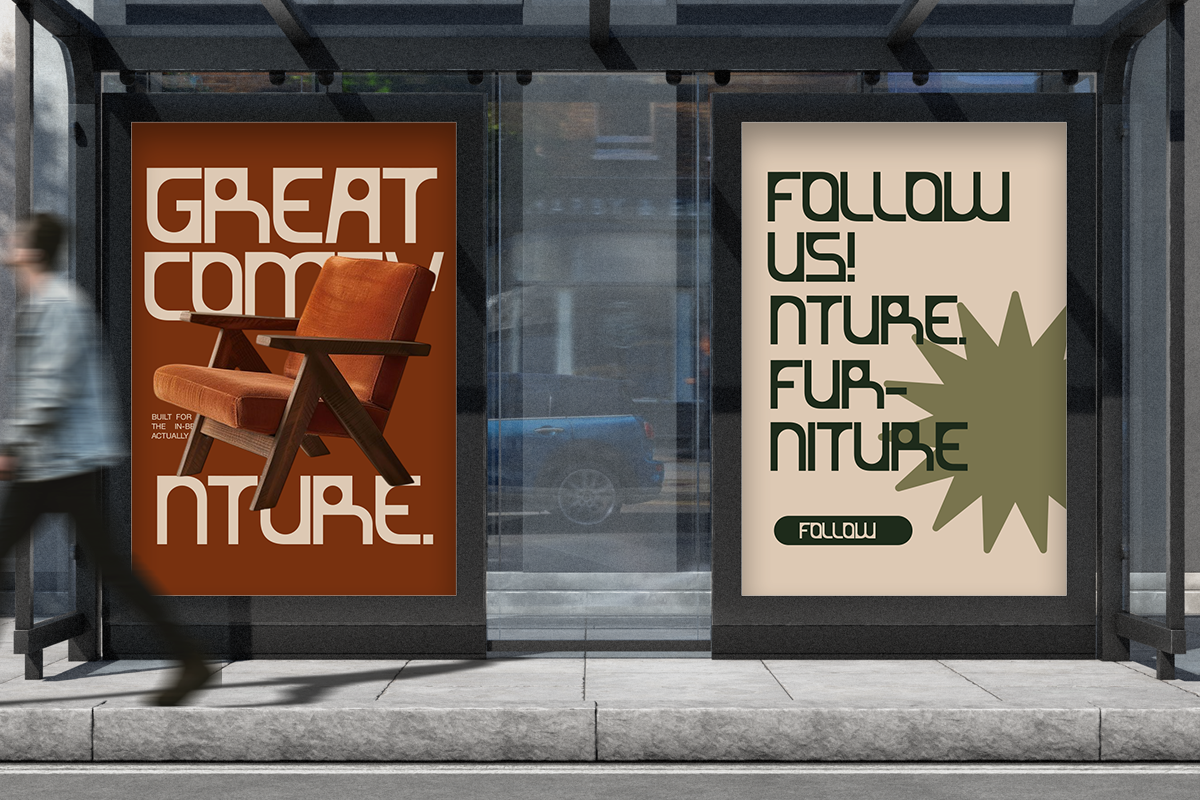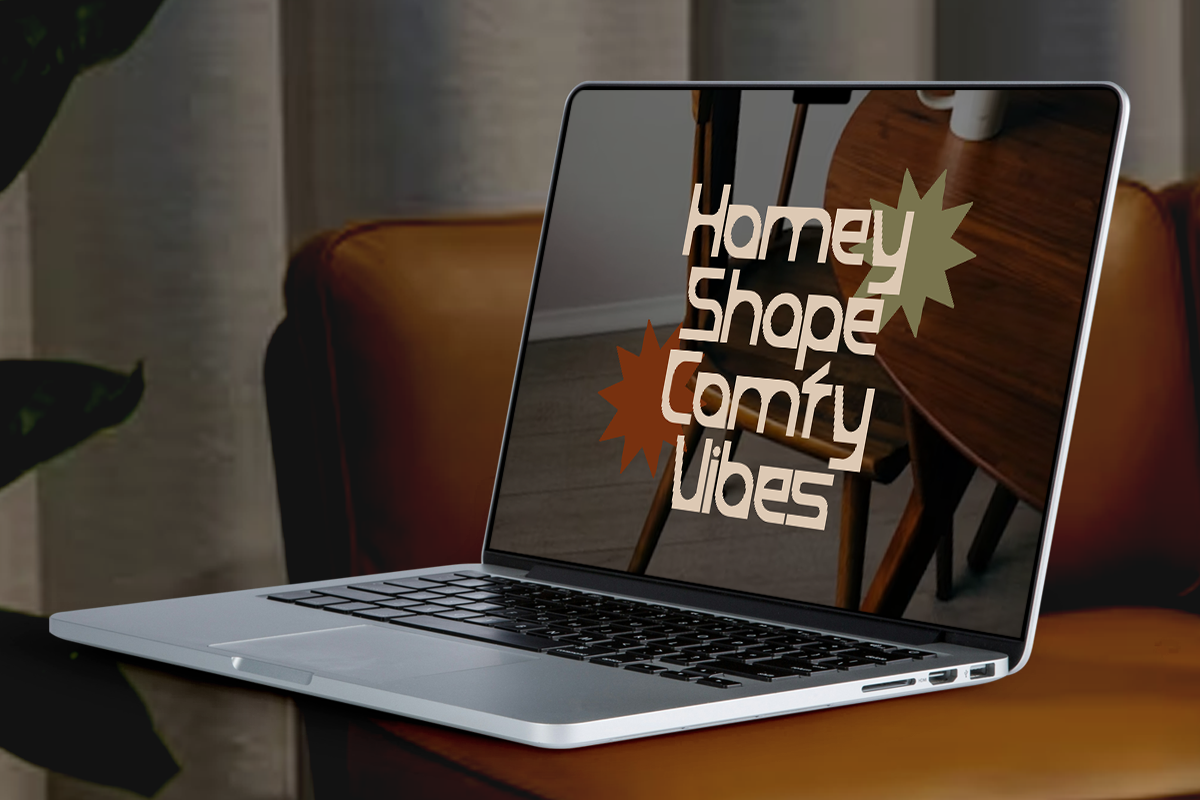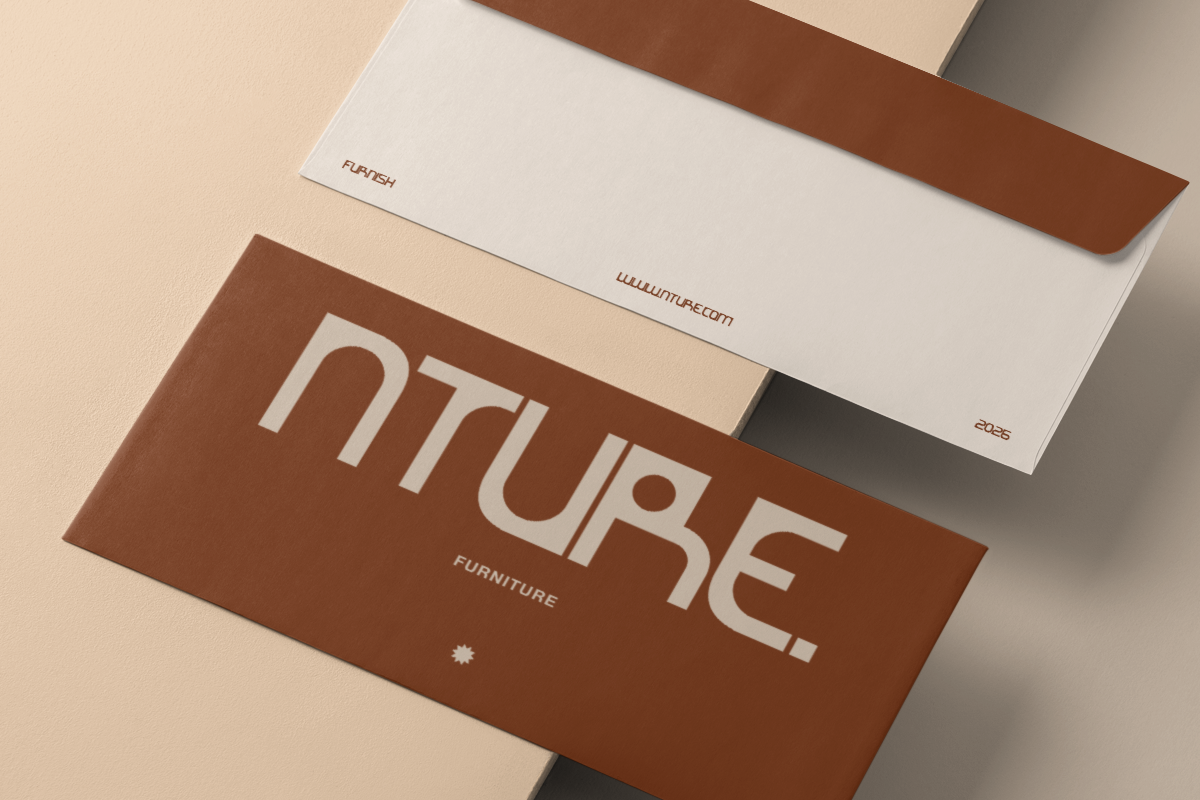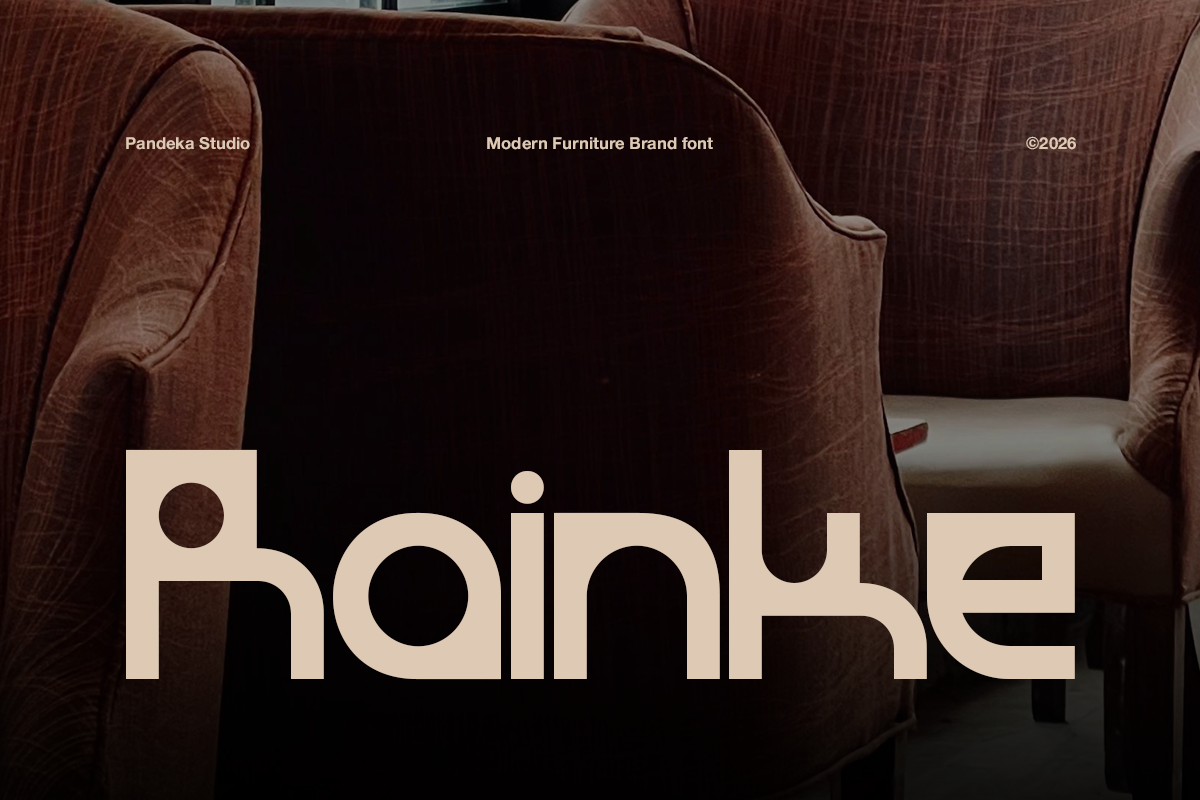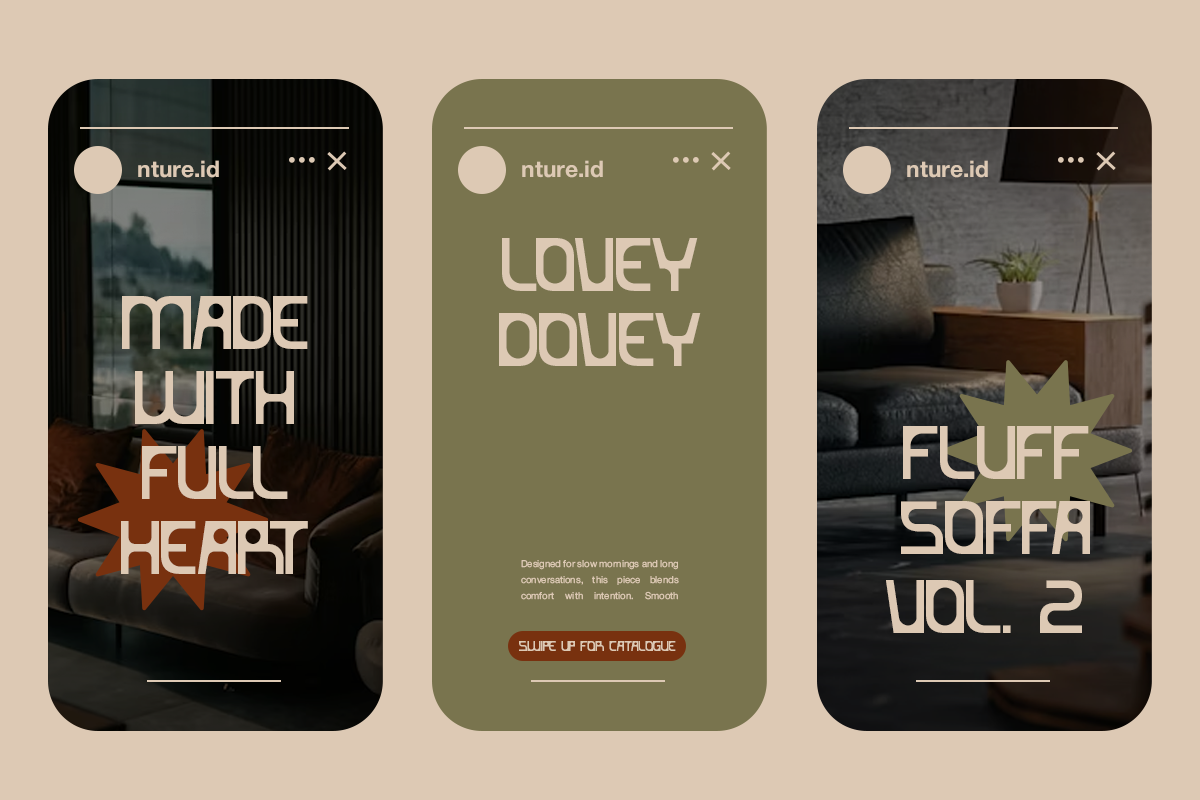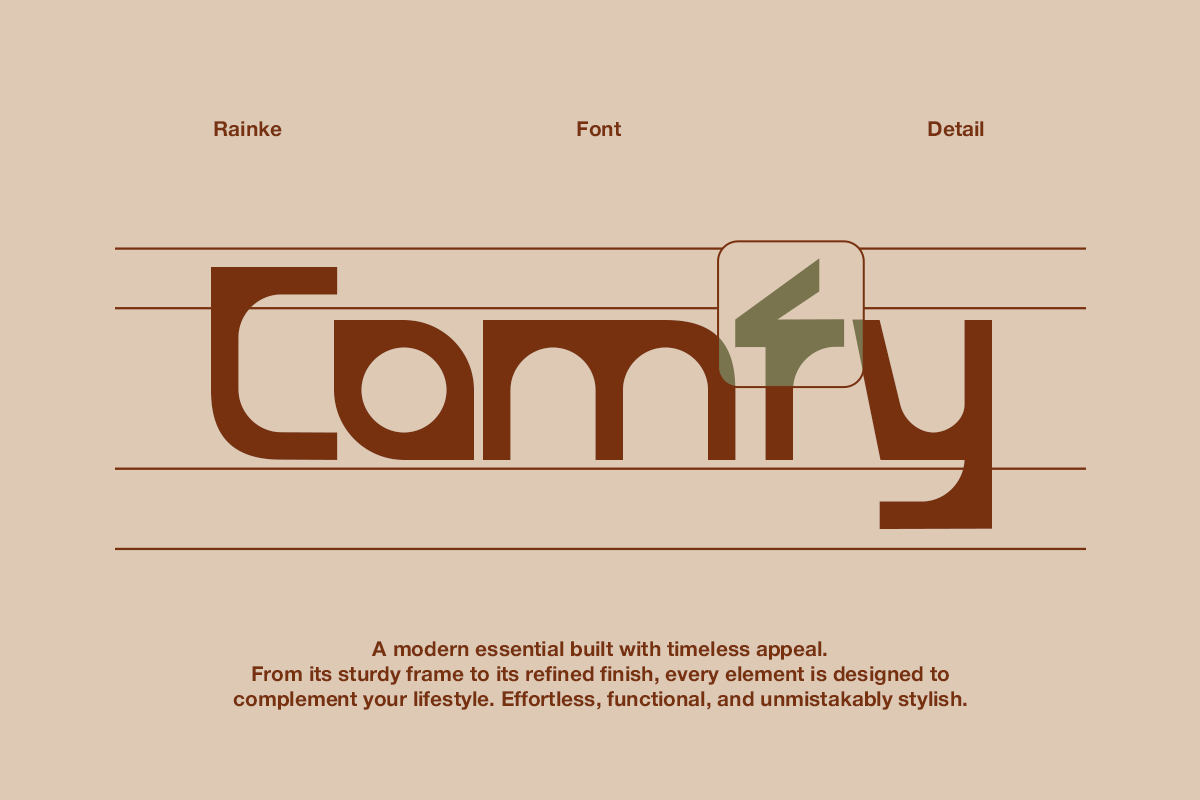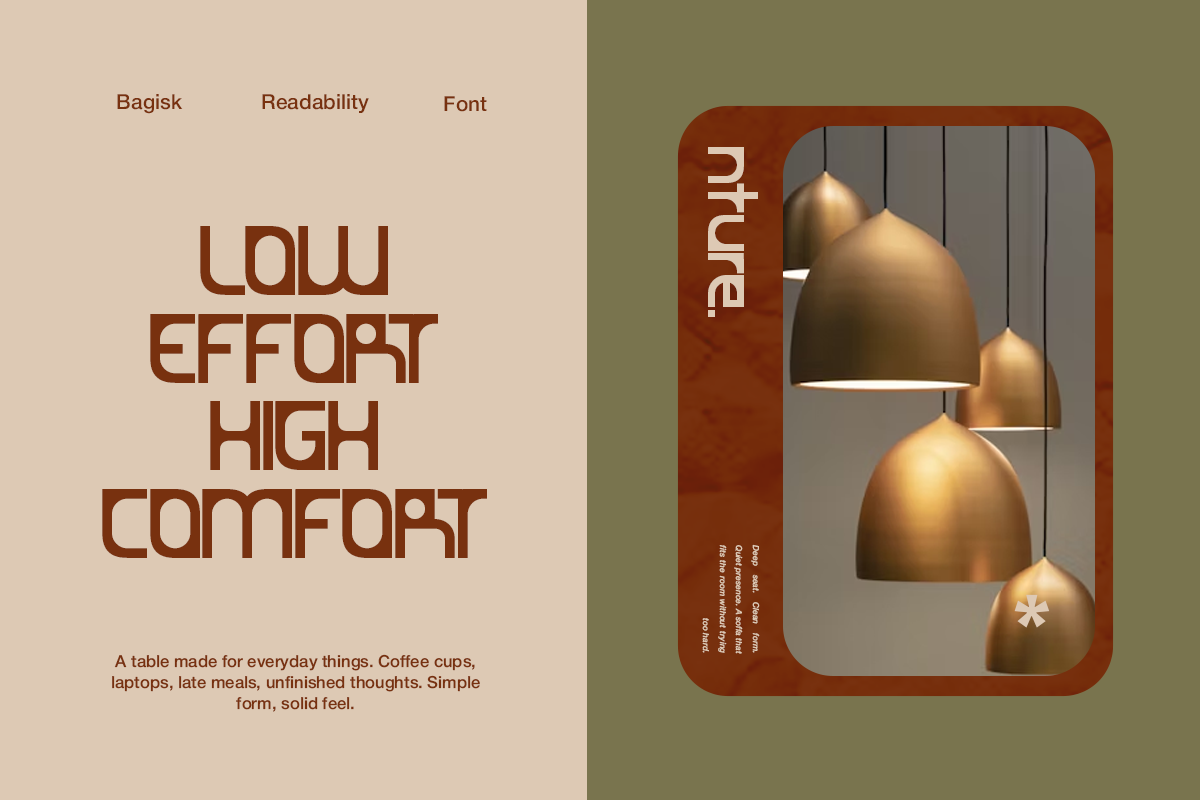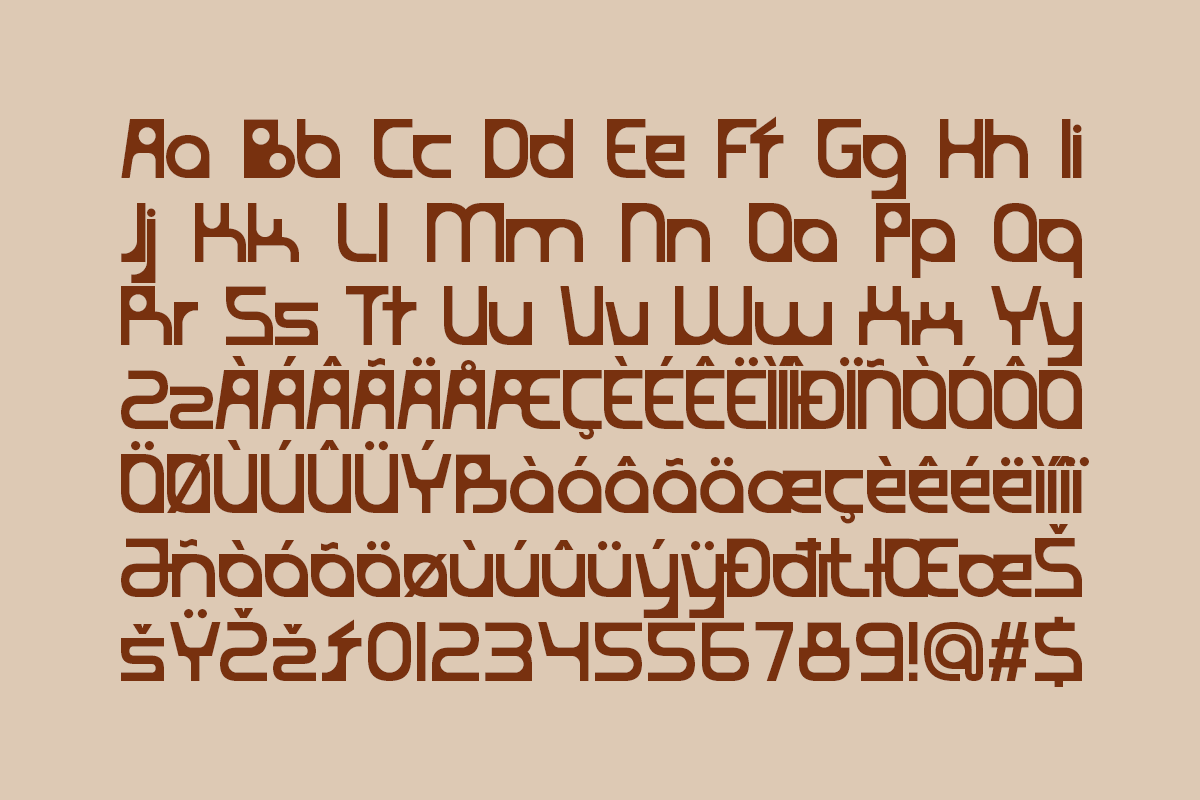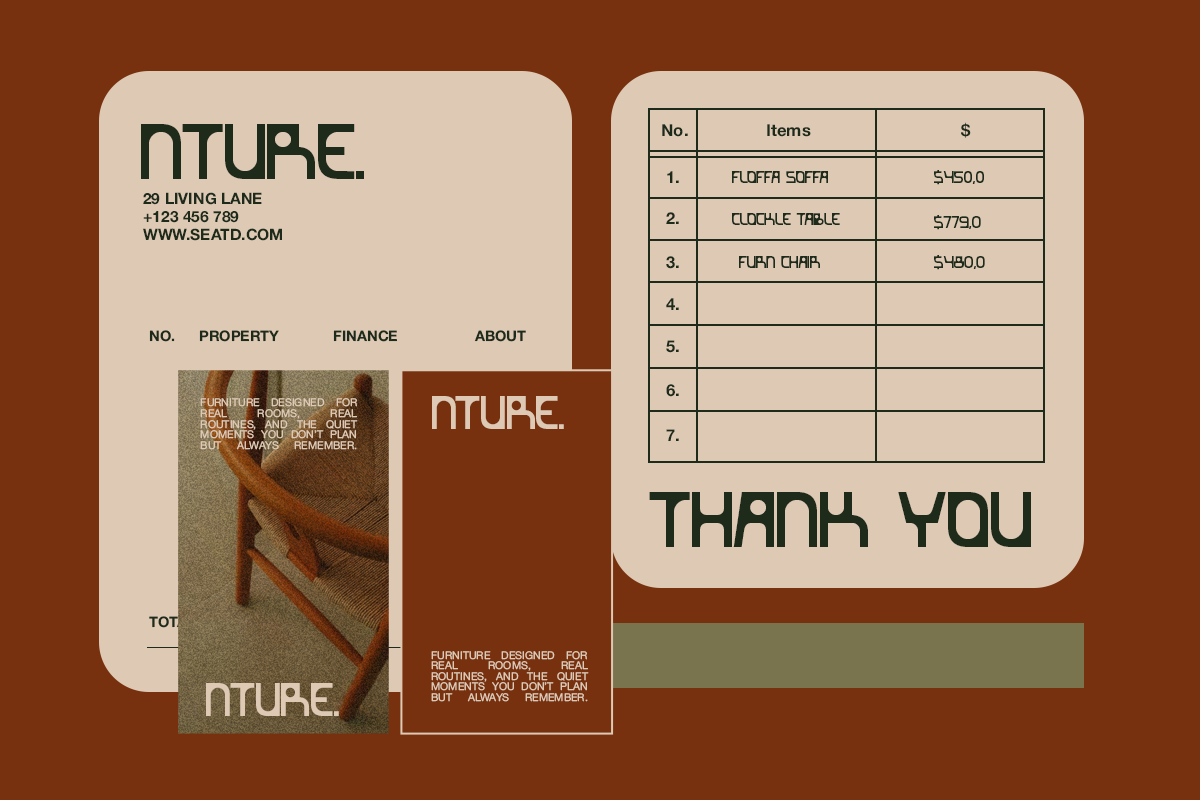
Rainke - Modern Furniture Brand Font
Rainke is a sleek and contemporary display font crafted for modern furniture branding and interior design identity. Featuring clean lines, smooth curves, and balanced proportions, this font delivers a refined, minimalist, and premium aesthetic that perfectly complements modern home décor, lifestyle brands, and architectural visuals.
Available in 1 style: Regular, Rainke includes uppercase & lowercase letters, numbers, punctuation, and multilingual support. Its elegant yet functional structure makes it ideal for logos, brand identities, showroom signage, furniture catalogs, product labels, posters, packaging, website headlines, and social media branding. Rainke brings a warm, sophisticated, and modern personality to every design.
- Full Character Set: Uppercase, lowercase, numbers, symbols, and punctuation